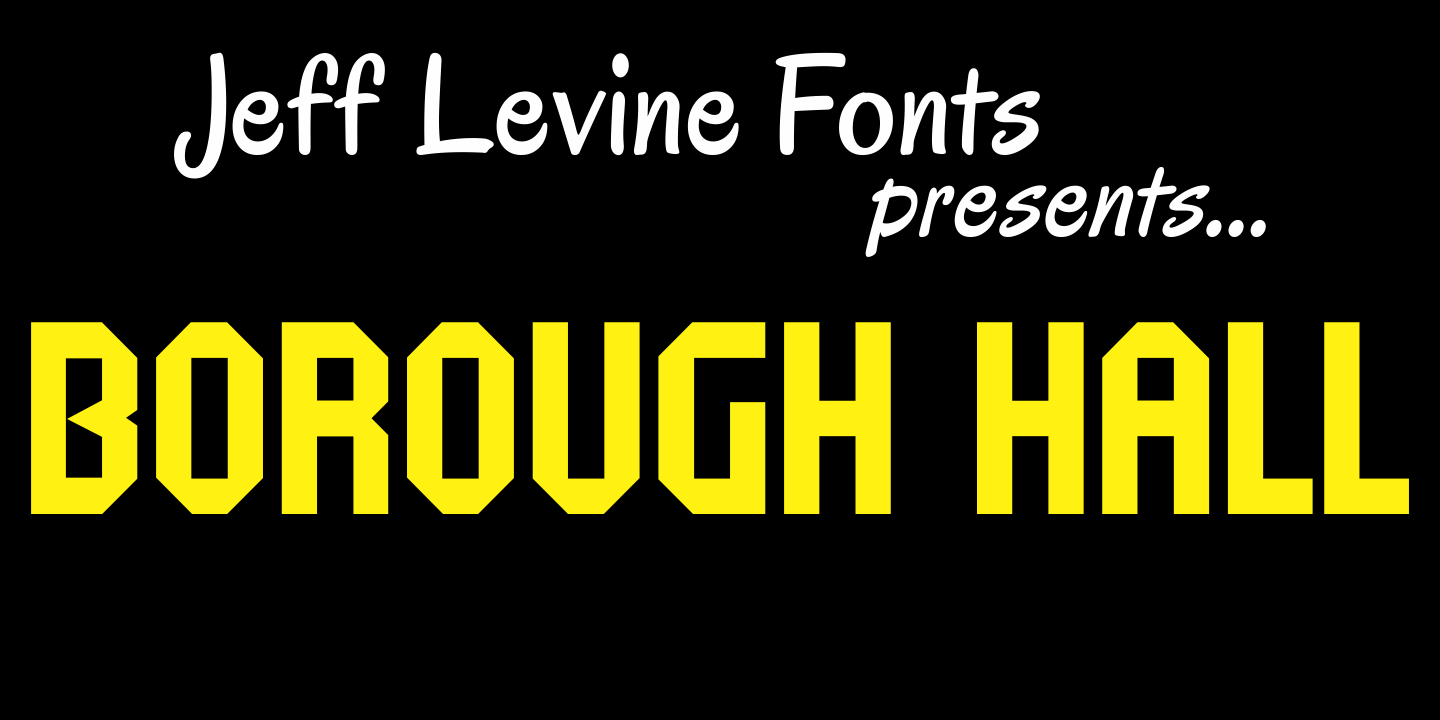
Borough Hall
Picture yourself on a New York subway station platform with the location name set into the tiles on the wall. Borough Hall JNL evokes the feeling of urban industrialism at its best.
Borough Hall JNL Regular by Jeff Levine Fonts